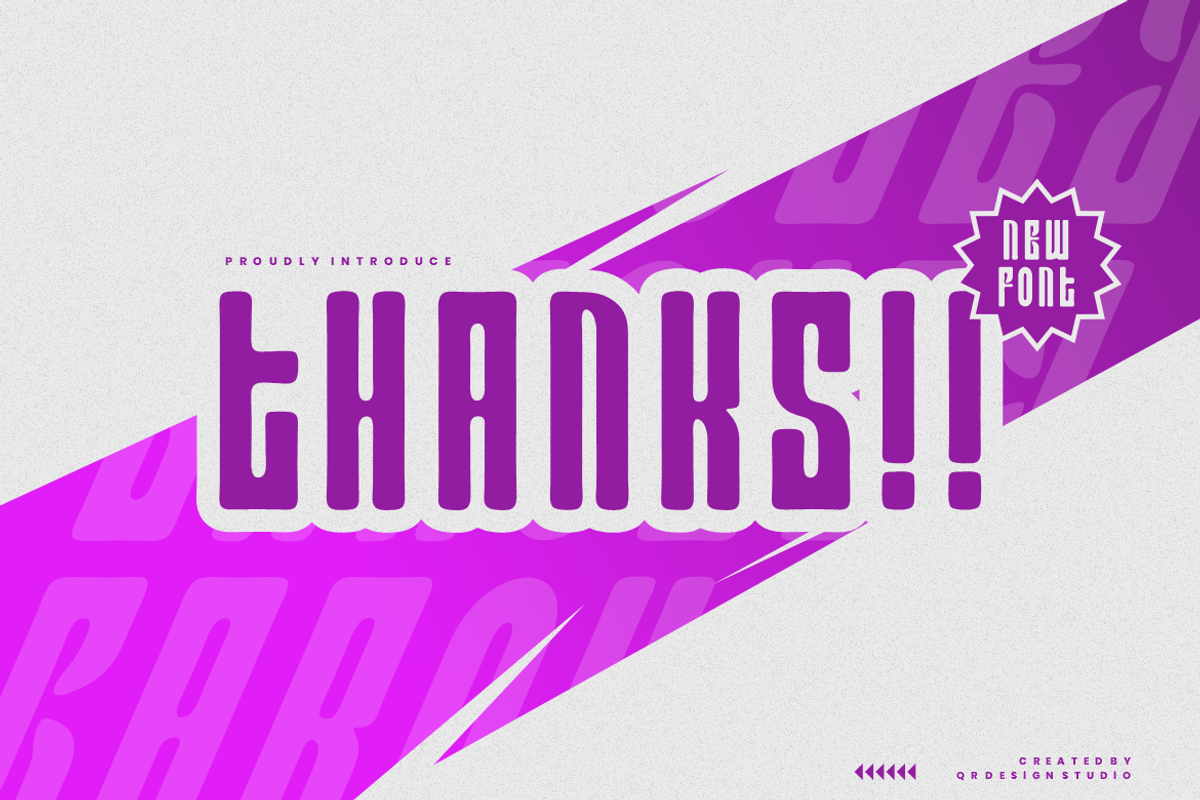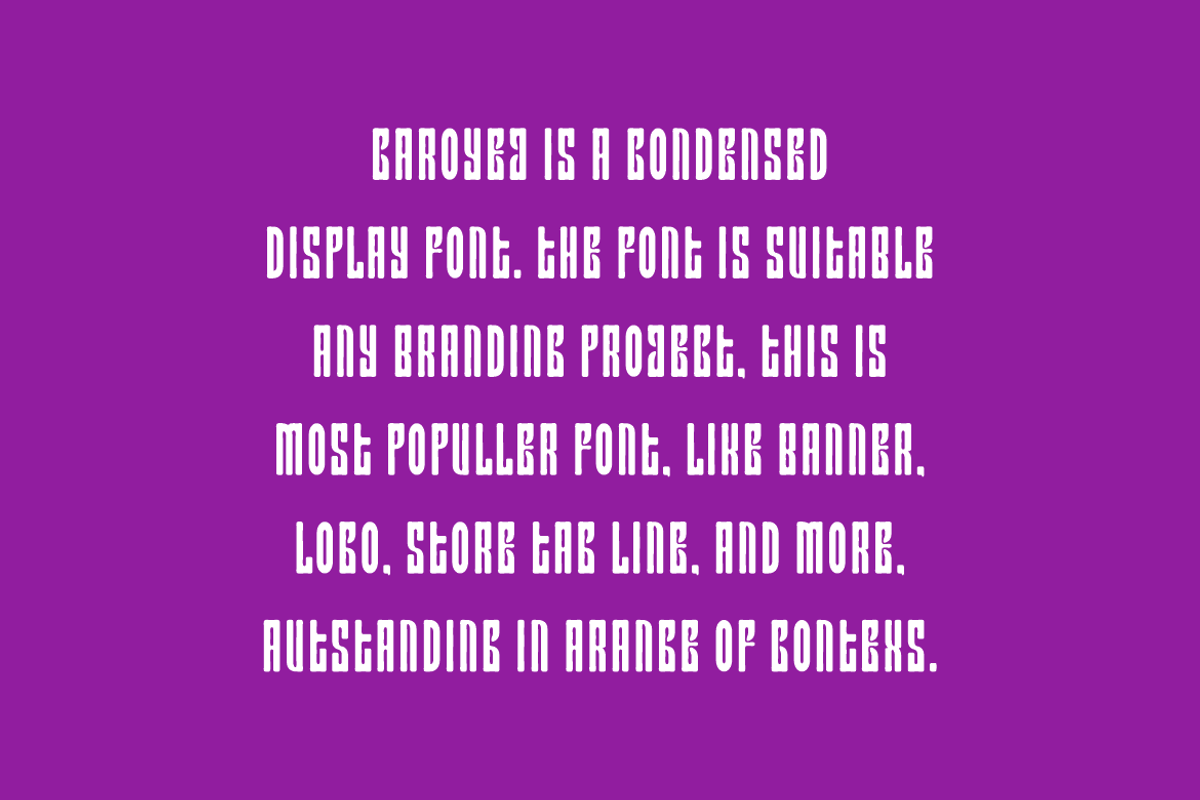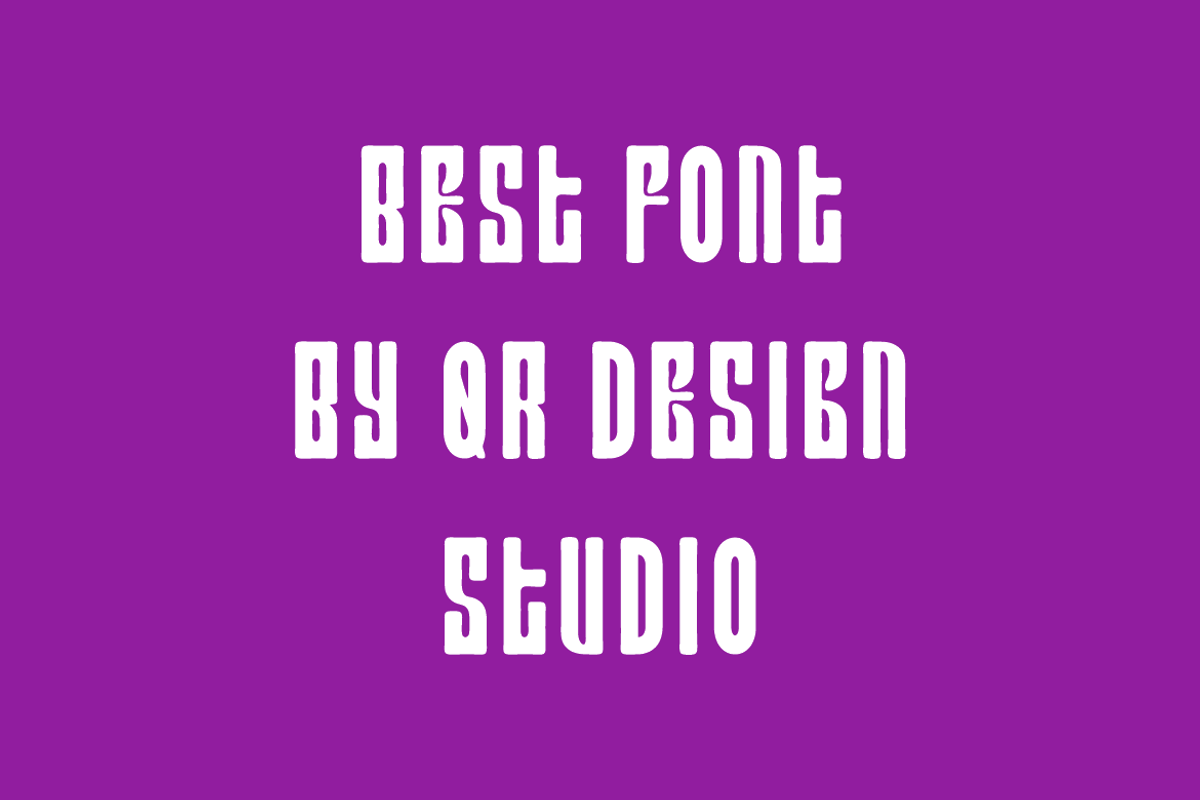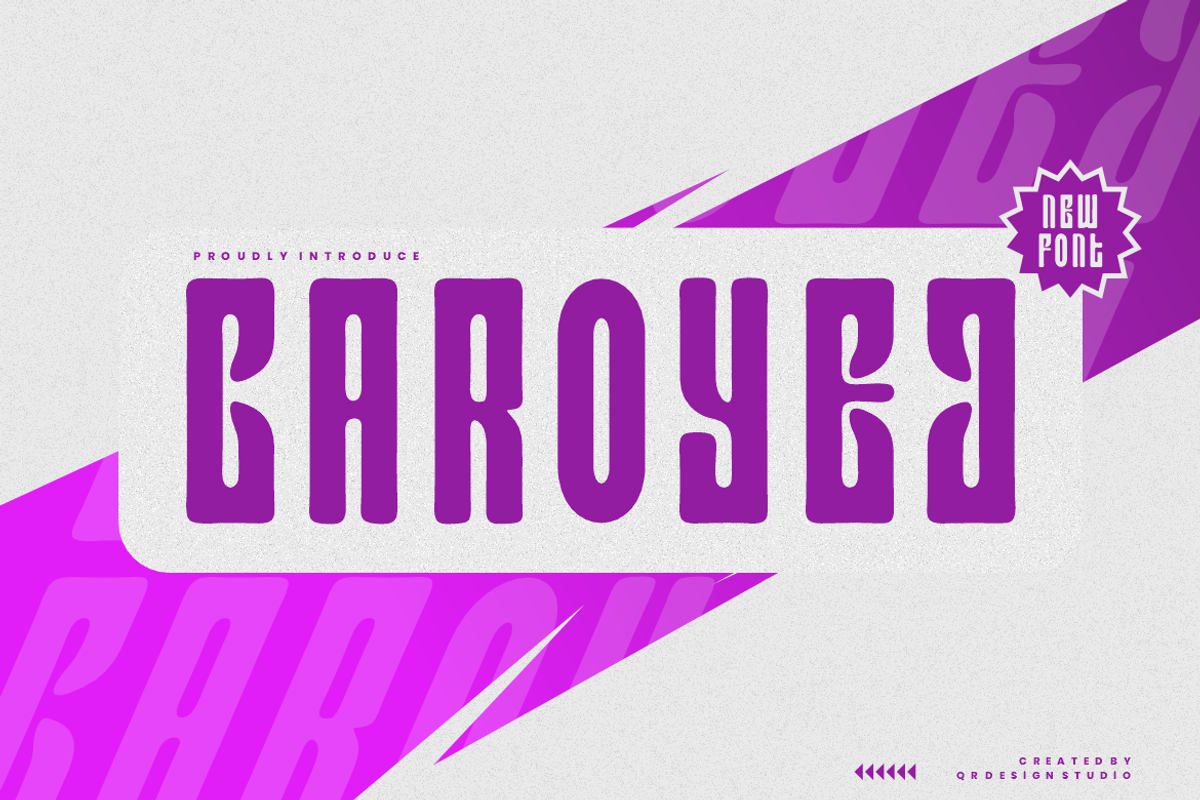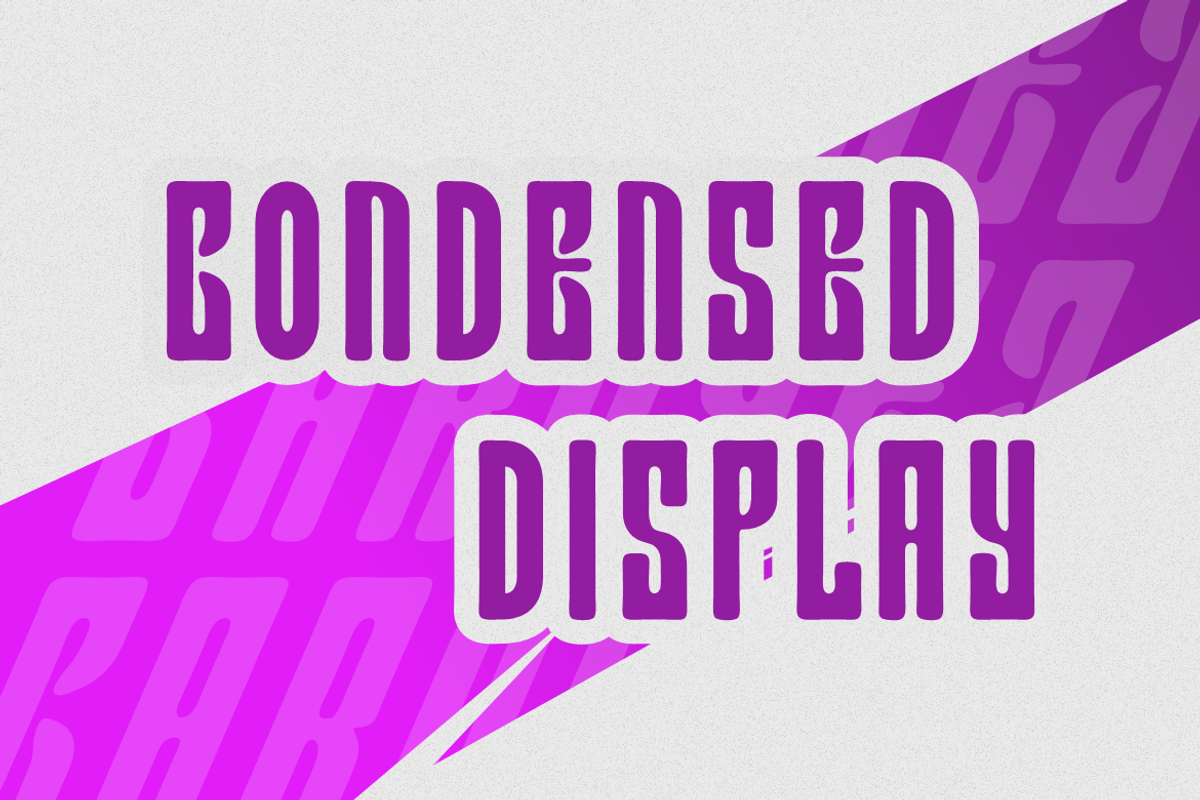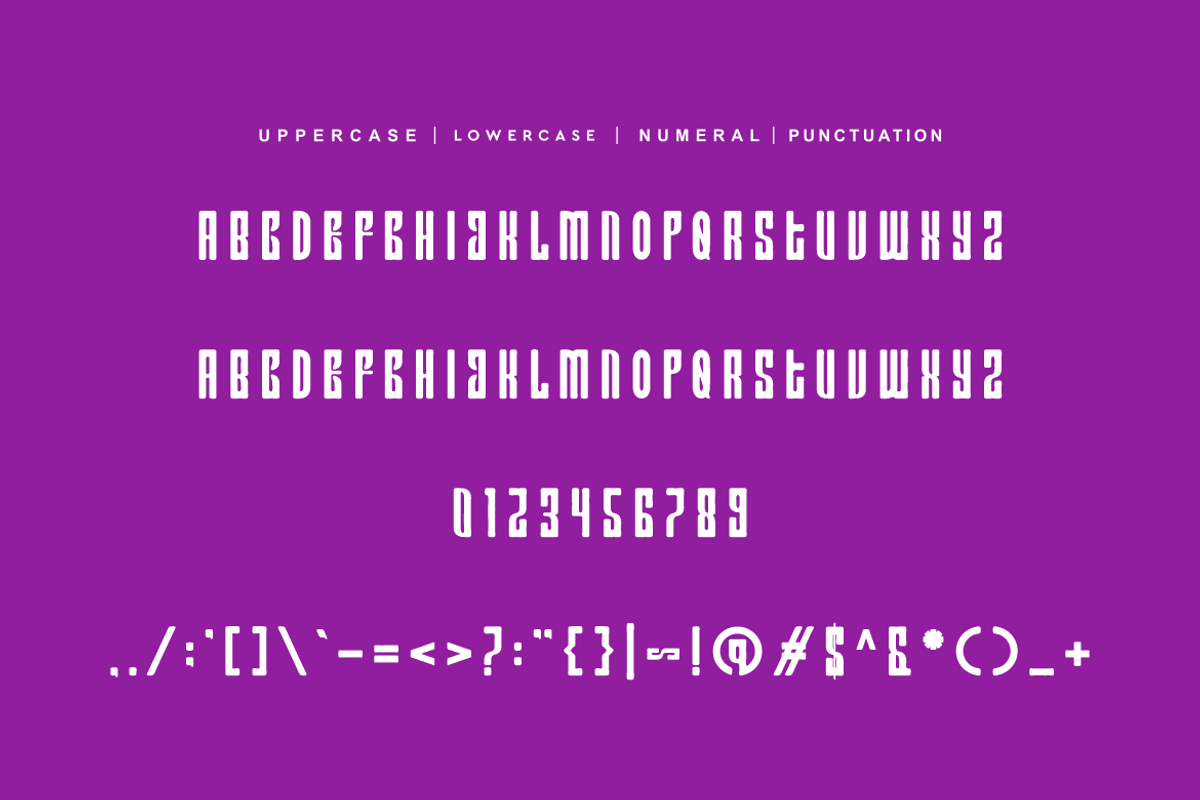
Caroyej - Condensed Font
Caroyej Font is a bold and authentic display font. The font is suitable for any branding project like poster, logo, sport, and many more. Outstanding in a wide range of contexts.